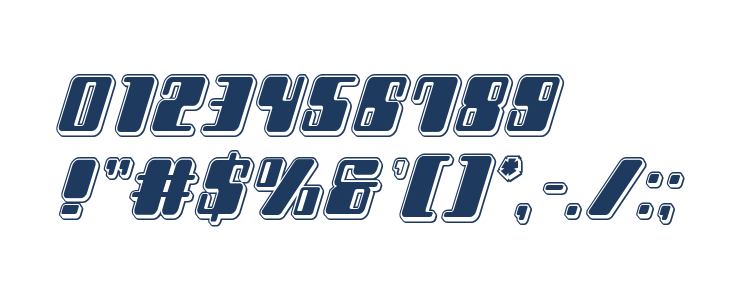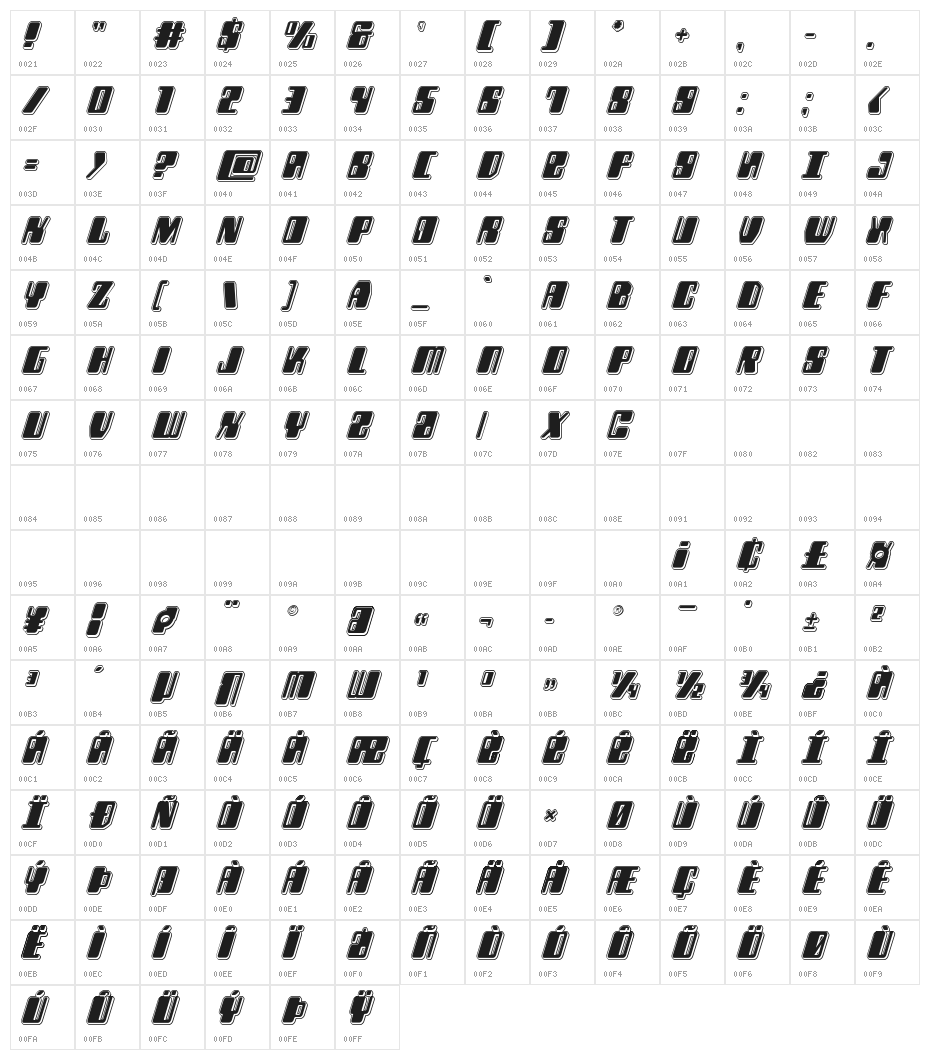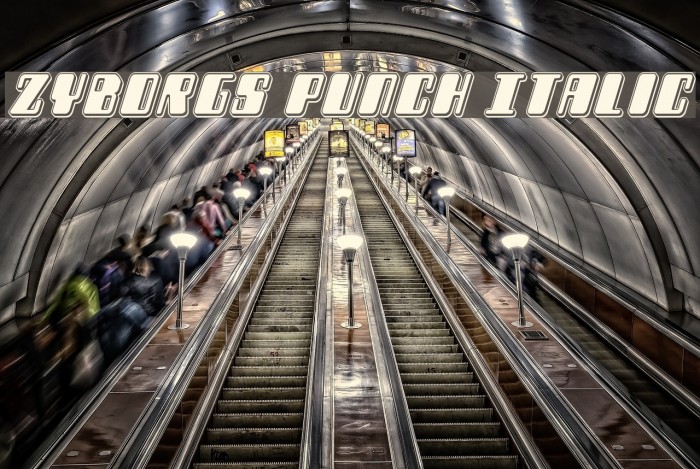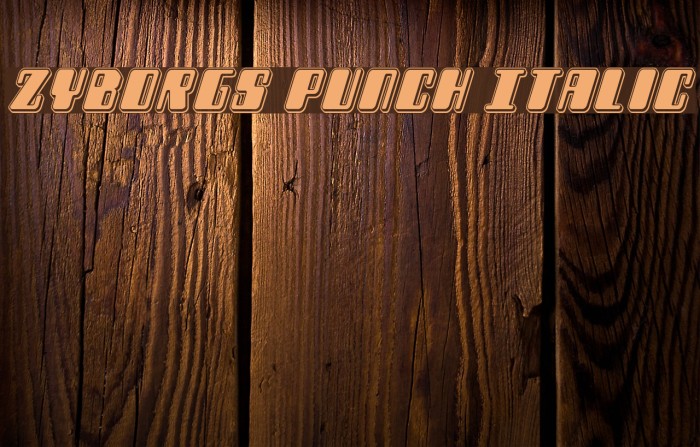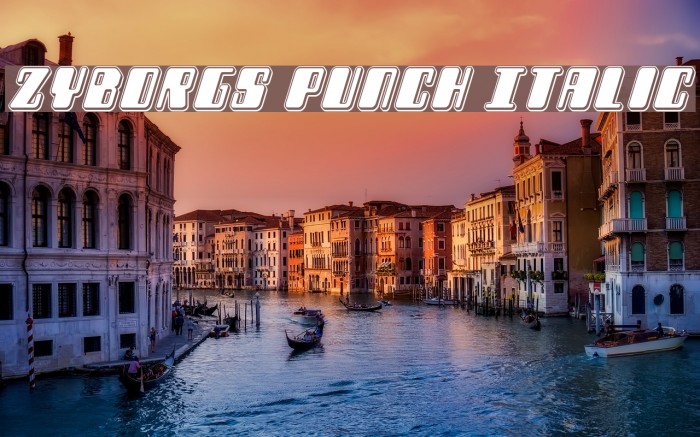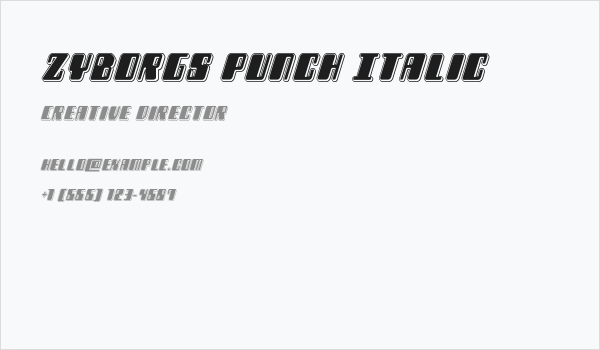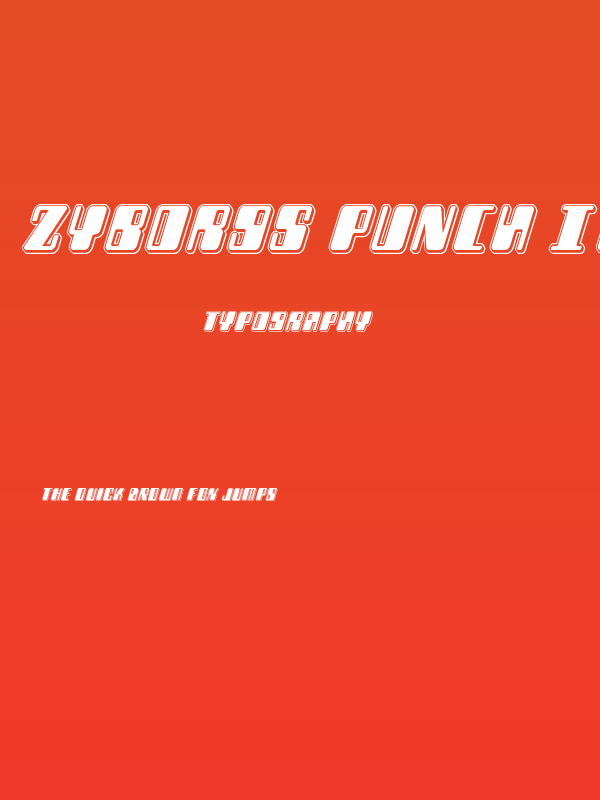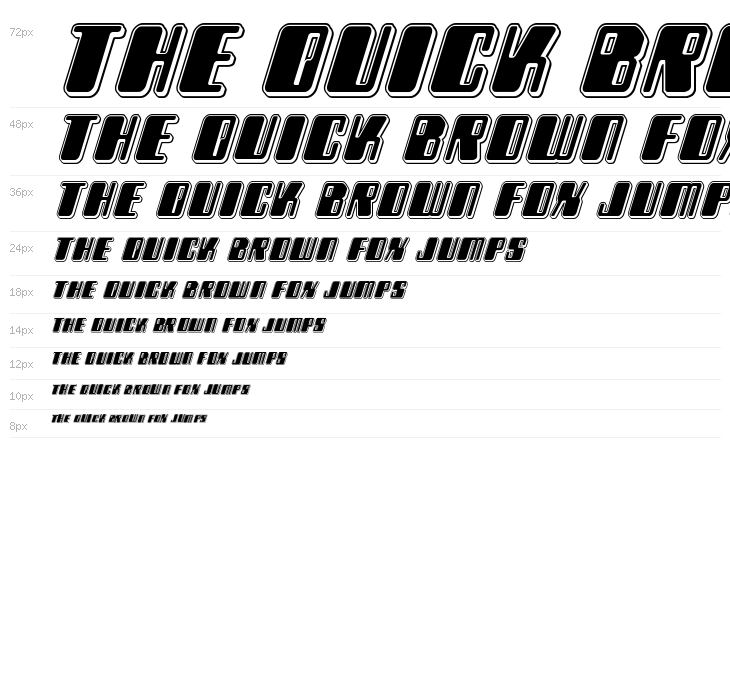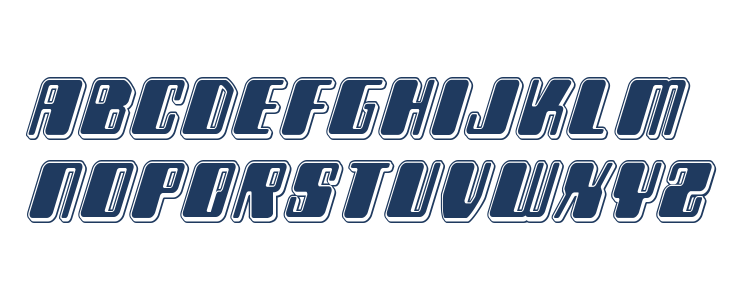
Zyborgs Punch Italic Font
Zyborgs Punch Italic Description
This font features a bold, italicized style with a futuristic and dynamic appearance. The characters are outlined with a thick border, creating a striking contrast between the filled and unfilled areas. The design incorporates sharp angles and geometric shapes, giving it a modern and edgy look. The uppercase and lowercase letters maintain a consistent style, with a slight slant that enhances the italic effect. The numbers and special characters are designed to match the bold and angular aesthetic, making the font suitable for attention-grabbing headlines and titles.